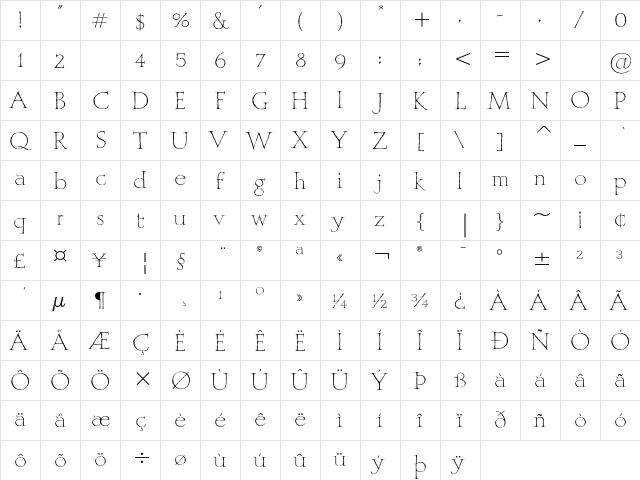
Mithras ITC Roman
Design Context for Mithras ITC Typeface
Mithras ITC takes a measured approach to typography — its balanced proportions and neutral character make it a reliable workhorse for both digital and print work.